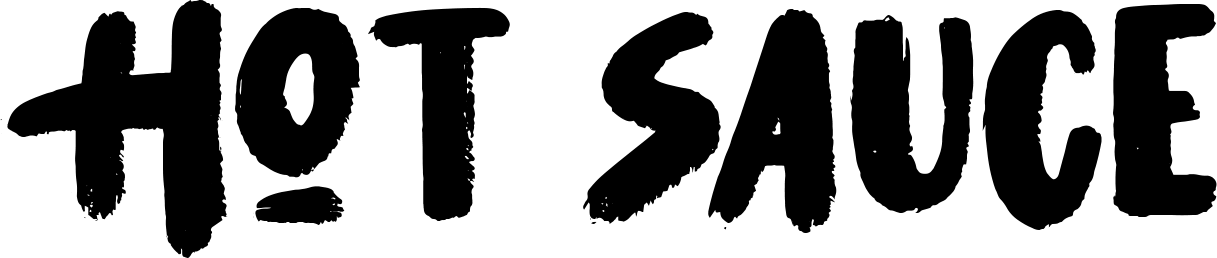
Hot Sauce Font
Natural and nuanced, Hot Sauce is a gentle , with authentic brush strokes. It’s a distinguishable font, available in two styles, that would look especially interesting if used in posters, product packaging, flyers, logotypes, etc.